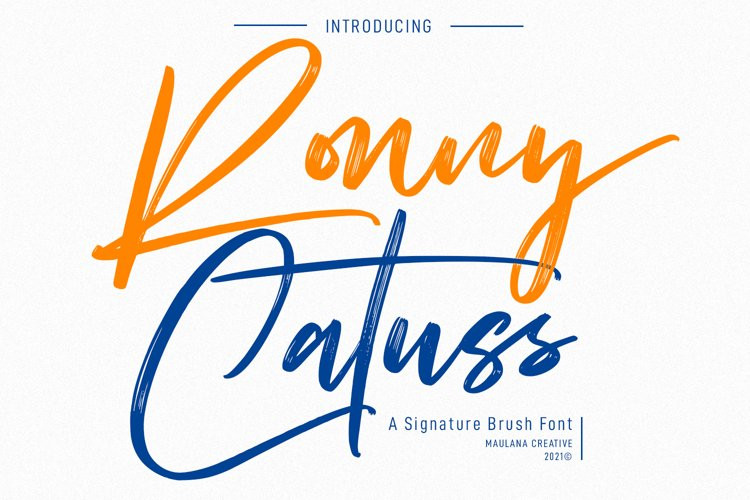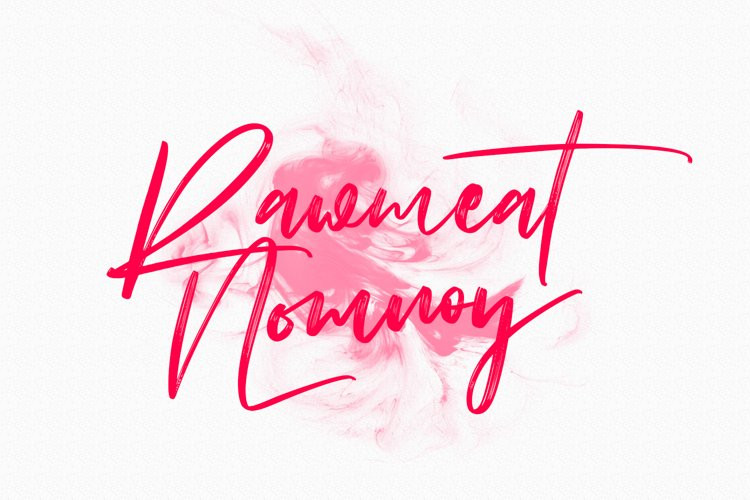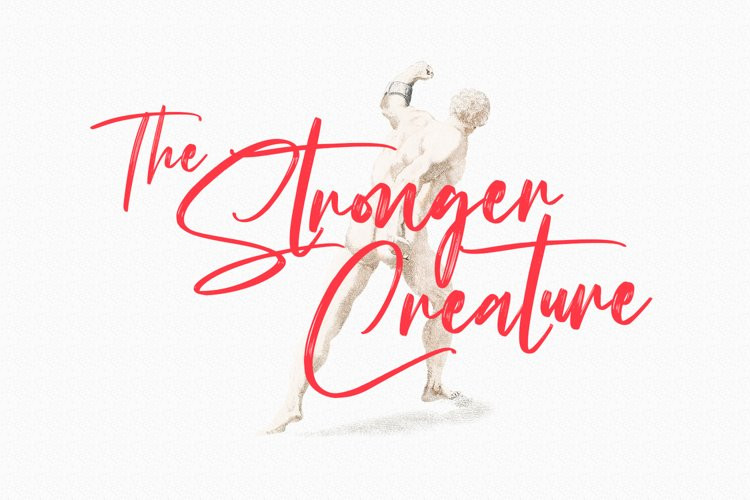
Ronny Catuss Font
Ronny Catuss FontRonny Catuss is an expressive signature brush font. With regular brush stroke, slanted and fun character with a bit of ligatures. To give you an extra creative work. Ronny Catuss font support multilingual more than 100+ language. This font is good for logo design, Social media, Movie Titles, Books Titles, a short text even a long text letter and good for your secondary text font with sans or serif. Make a stunning work with Ronny Catuss font.